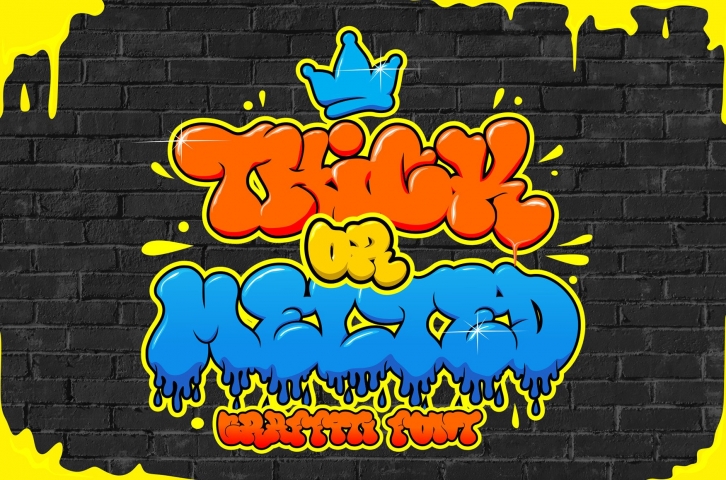
Thick or Melted is a cool, bubbly, graffiti styled display font. It is suitable for designs such as t-shirts, sportswear, logos, advertisements, clothing, and more.